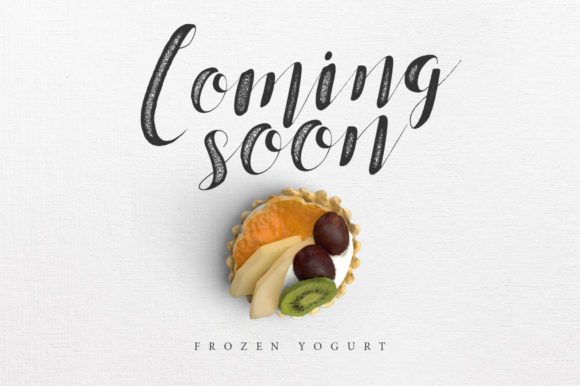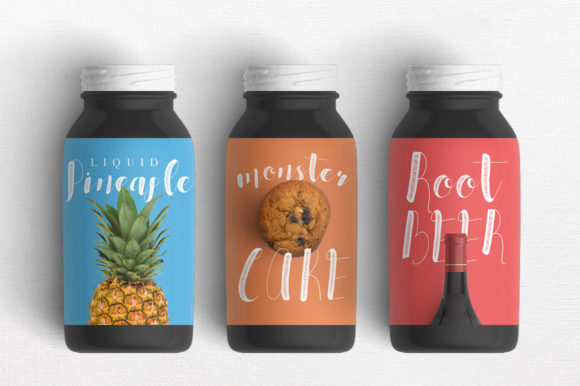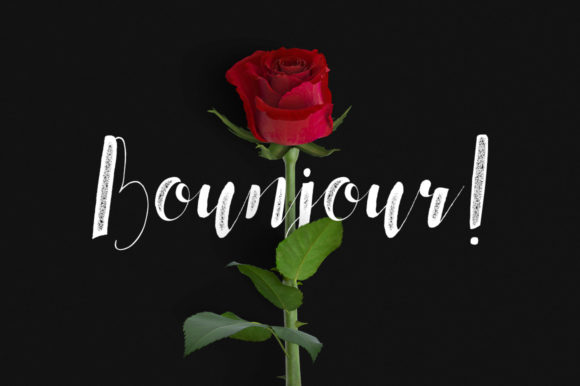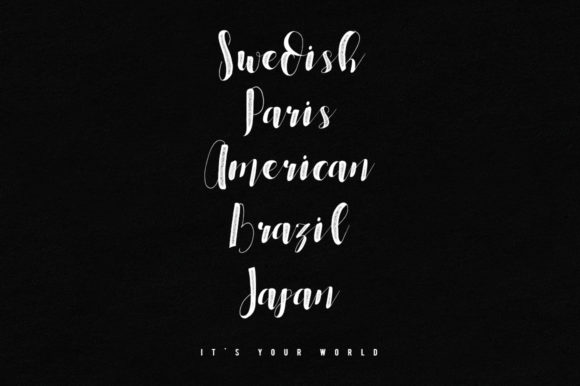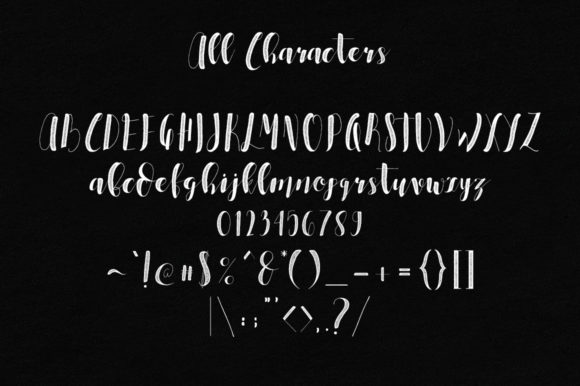
Dounats Font
About Dounats Font
Dounats is a delicate and neat handwritten font. Uniquely brushed, this font is ideal for a wide range of designs. Fall in love with its incredibly versatile style and use it to create spectacular designs!